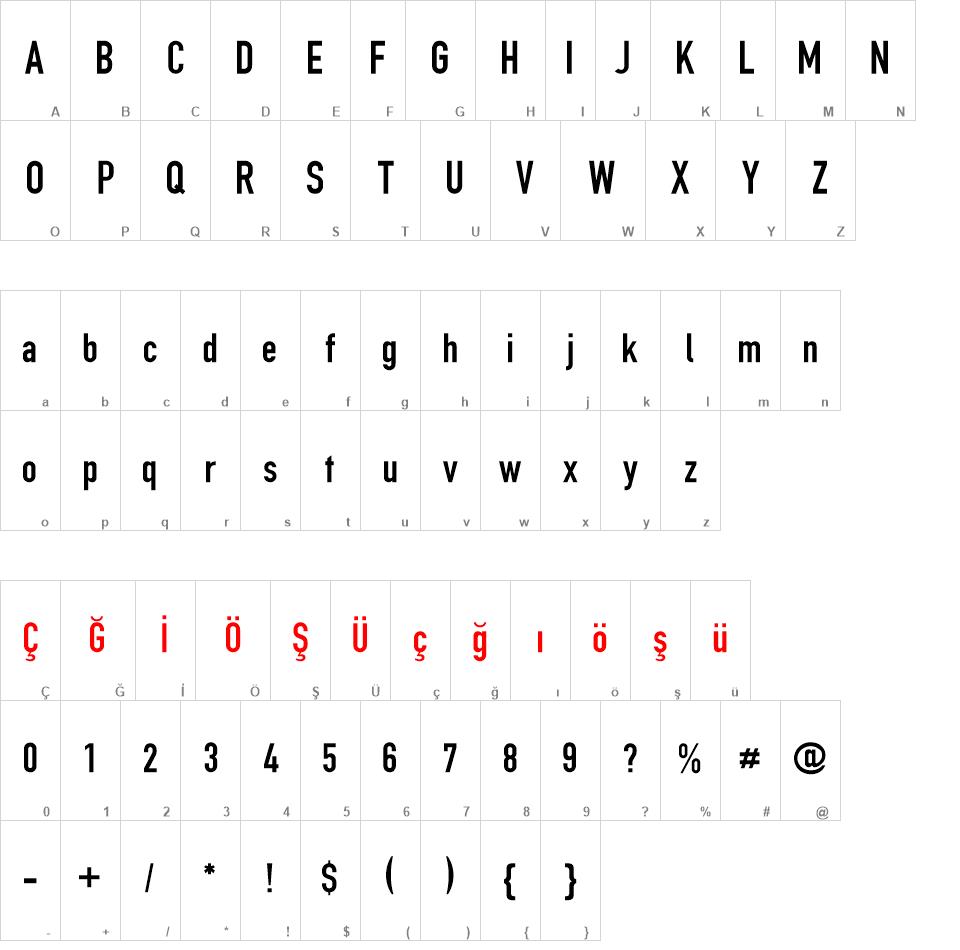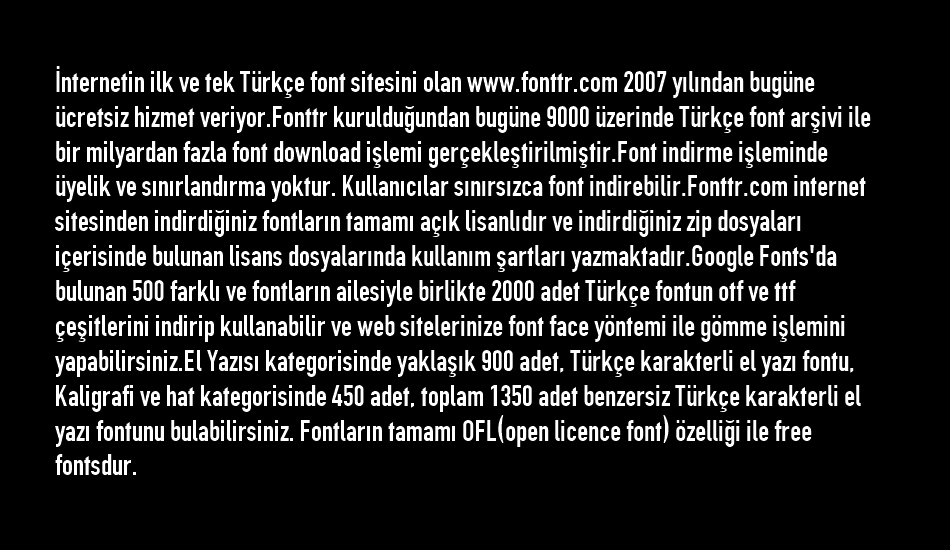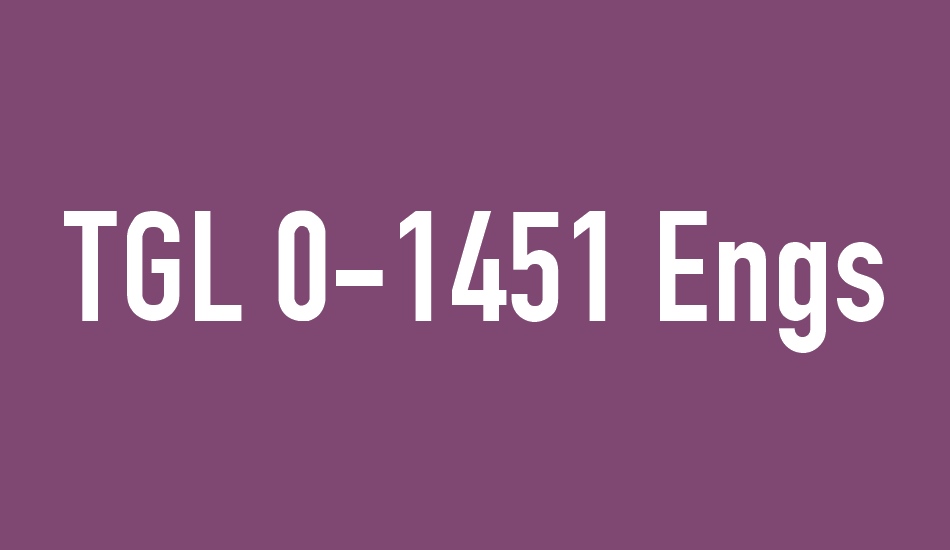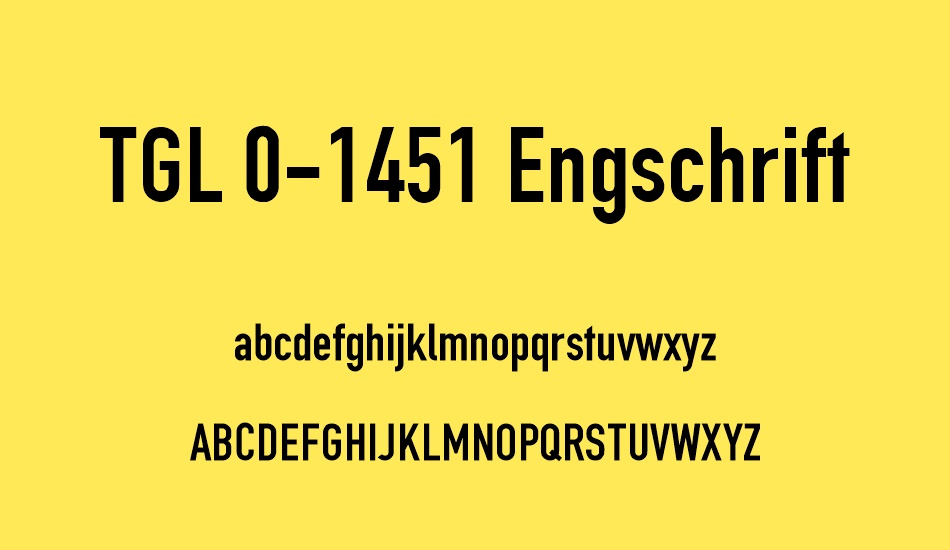
Engschrift font
Engschrift
This is another font that started life as a logo design project. The project was shelved and my intention was to finish the font as a standalone project, but other commitments have made this impossible.
The font was originally going to contain only lower case characters, but I've mapped a set of characters to the upper case slots, which contains a few capital forms.
TGL 0-1451 Engschrift font